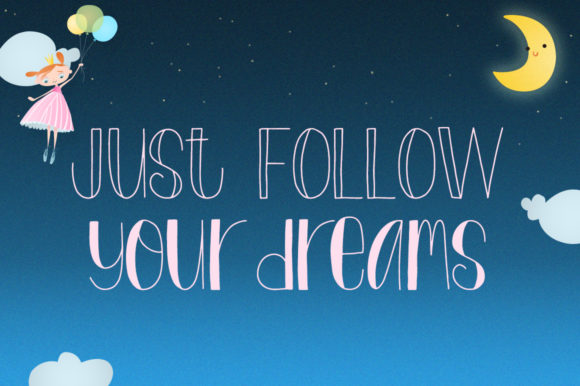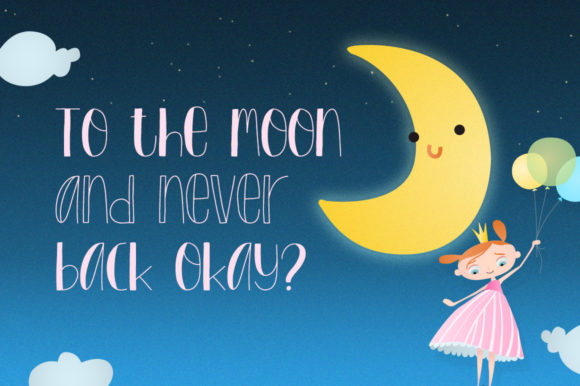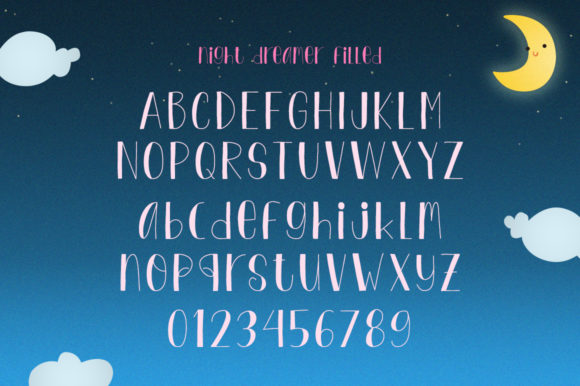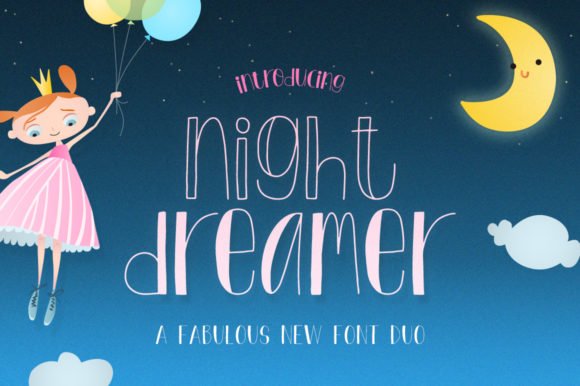
Introduction to Night Dreamer Font
Night Dreamer feels equally charming and elegant.
This display font is the perfect fit for all of your logos, branding, social media, and crafty DIY projects .